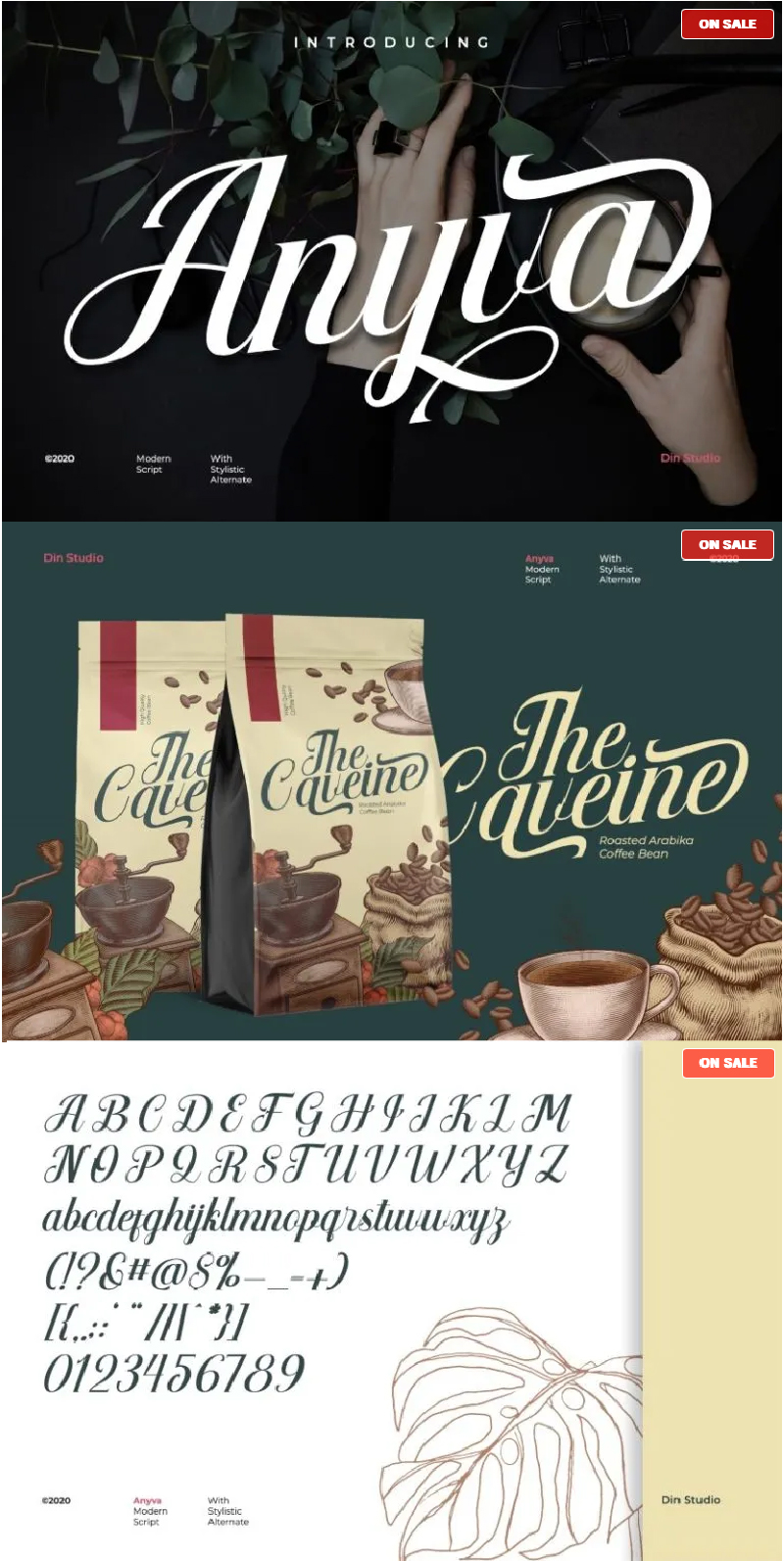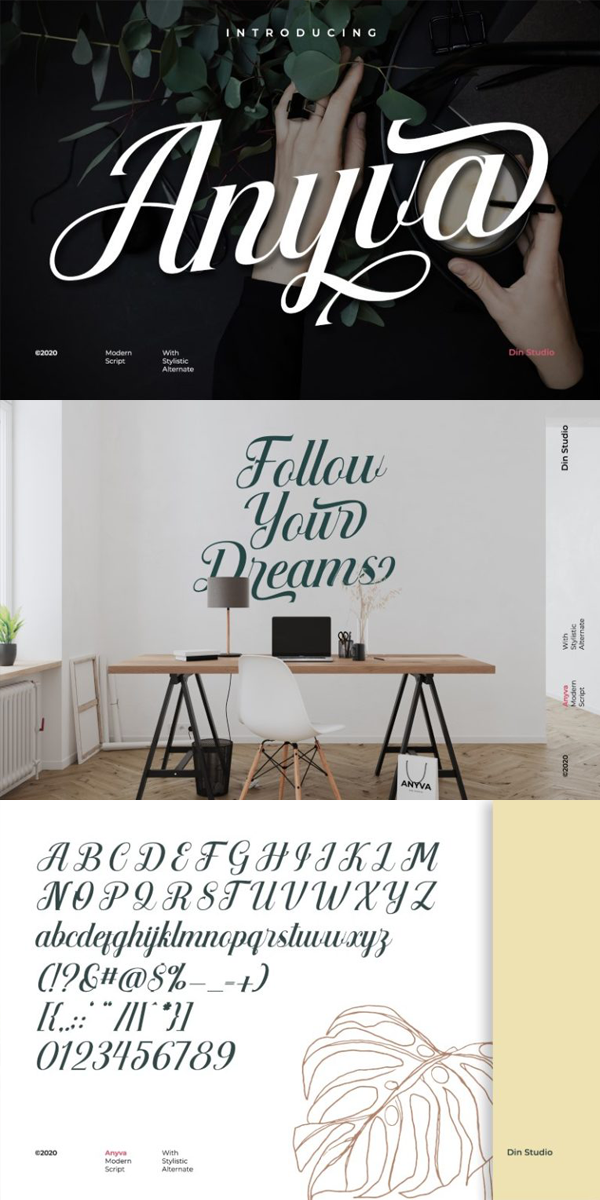
Anyva Font
About Anyva
Hello, Everyone! Let’s welcome the Anyva, a modern calligraphy font showing a beautifully attractive typeface made for any professional project brandings. It is best applied for logos, brandings, weddings, and quotes. See the previews above to get some inspiration on how you can use them. Happy Designing!
-Standard Ligatures